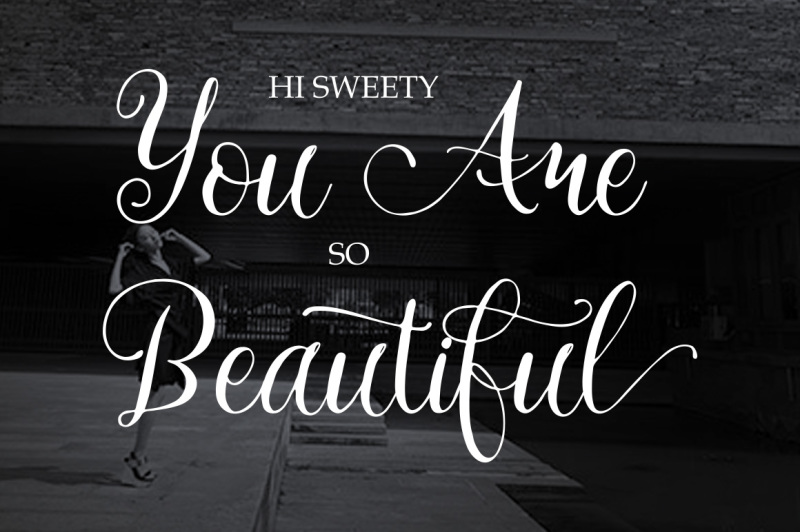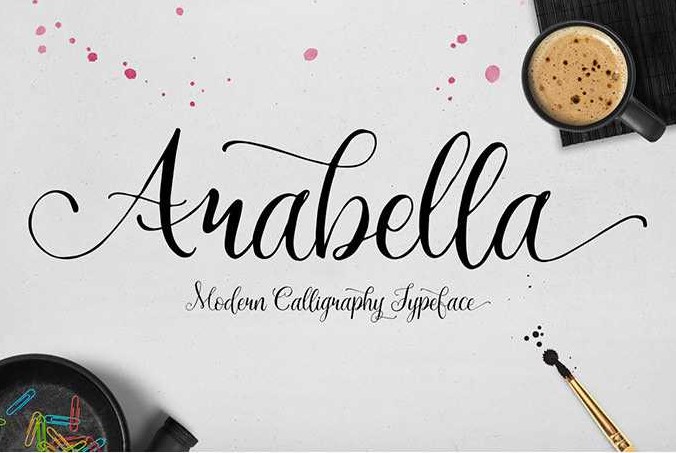
Arabella Font
Here is the Arabella Font that falls under the class of the Calligraphy typefaces. This typeface is highly rated inside the google fonts and it is also known as Pixellab font. Now, the amazing groups inc took the all right reserved for this organization. It’s headquarter located in downtown north.
This is derived from the milkshake font. Therefore, it will become a gift-day producer with a huge consumer base. So, on the triumphing, we wanna speak about the selima font family used for the designing of its logo. Arabella Font Free Because of the truth, pretty some kinds of designers from some of the typeface and create a few new designs similar to raleway font that does not neglect approximately unique from others.